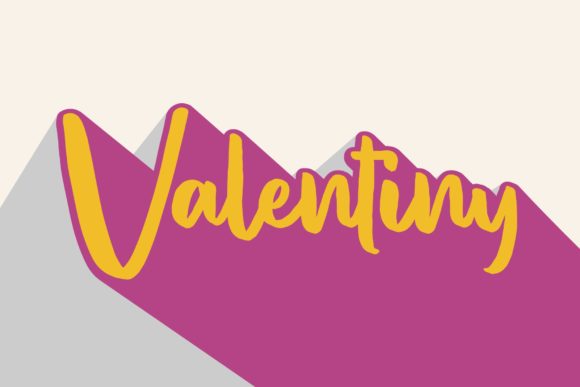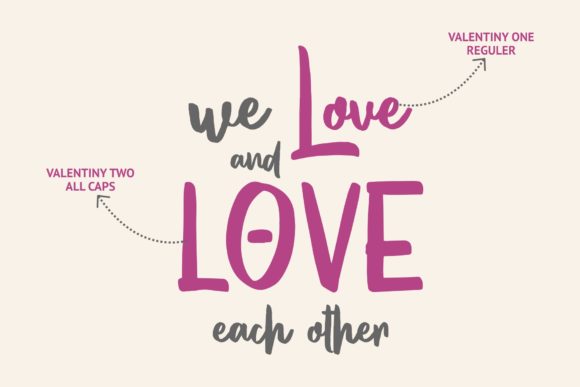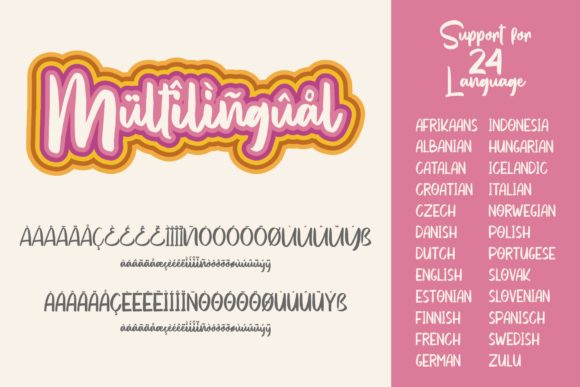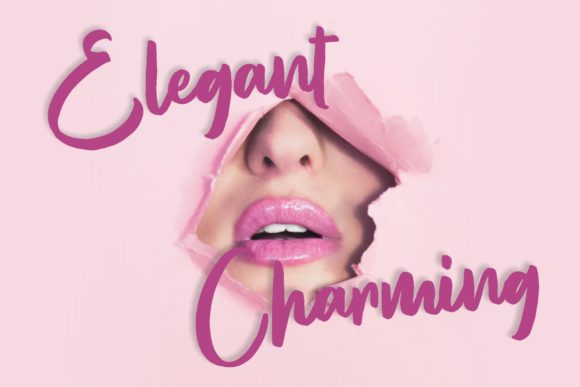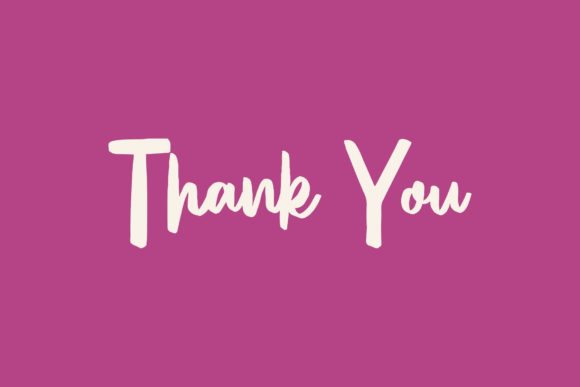
Valentiny Duo Font
About Valentiny Duo Font
The Valentiny is an amazing font duo. It has an unique handwritten touch which is perfect for adding a natural touch to your designs.
It’s perfect for logos, t-shirts, papers, print designs, website headers, photo frames, flyers, music covers, posters, image sliders, and much more.